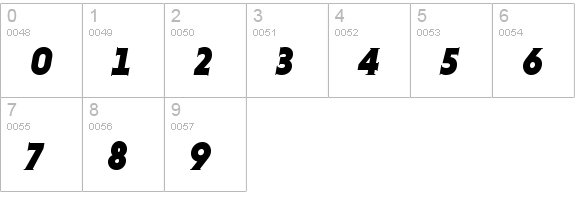
Niveau Serif Black Italic Font Details
Niveau Serif Black Italic is a maximum-weight, dramatic, italic variant in the Niveau typeface family \xE2\x80\x94 well suited to maximum-impact headlines, posters, and packaging.
Niveau Serif Black Italic font exudes a sense of bold elegance and sophistication. Its strong, thick strokes combined with delicate italicized detailing create a striking visual impact that commands attention. Perfect for adding a touch of modern flair to any design project, this font is ideal for headings, titles, and branding materials. The Niveau Serif Black Italic font is not only visually appealing but also highly versatile, easily adapting to various design styles and aesthetics. Whether you're working on a sleek website layout, a polished magazine spread, or a high-end product packaging, this font will elevate your work to a new level of refinement. Best of all, the Niveau Serif Black Italic font is available for free download at FontsMarket.com. Simply visit the website to access this premium font and enhance your creative projects with its powerful presence. Don't miss out on this opportunity to elevate your designs with the timeless appeal of Niveau Serif Black Italic font.